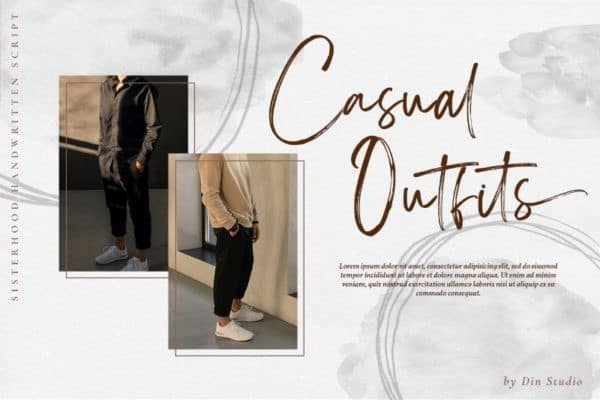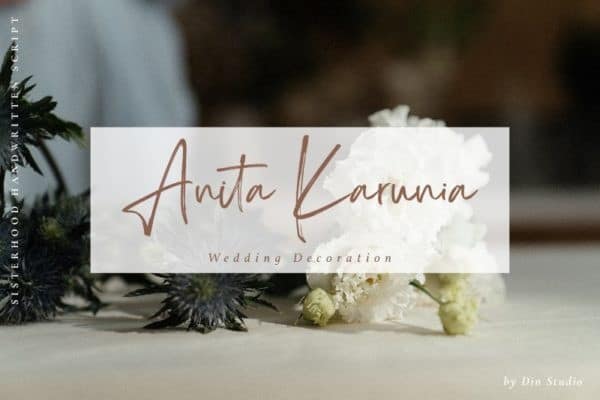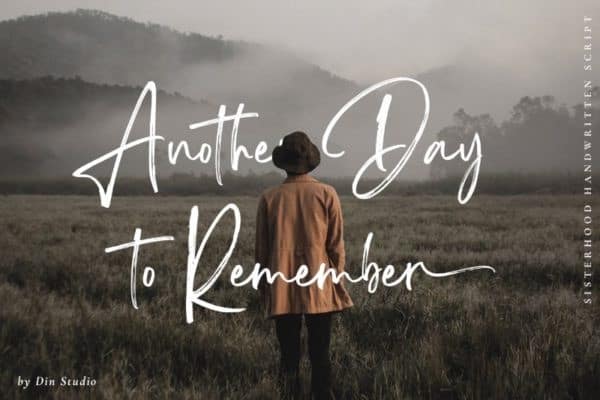
Sisterhood Brush Font
Sisterhood Brush Font is an elegant and classy script font, created with the help of a brush pen. Made from font designer named Din Studio. This type of font perfectly made to be applied especially for logos, Poster, stationery, magazines, menus, books, invitations, greeting cards, packaging, labels, apparel, marketing, business cards, etc. Add this font to your favorite creative ideas!